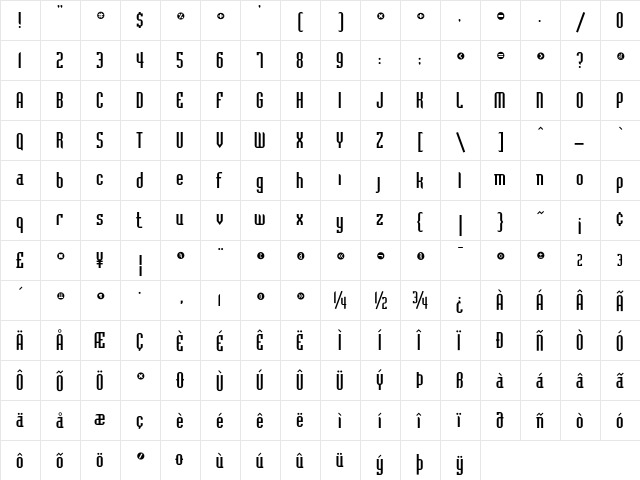
BadlocICG Regular Font Preview
BadlocICG Regular
Design Context for BadlocICG Typeface
BadlocICG is a composed and adaptable typeface that performs quietly and consistently across a wide range of design contexts.